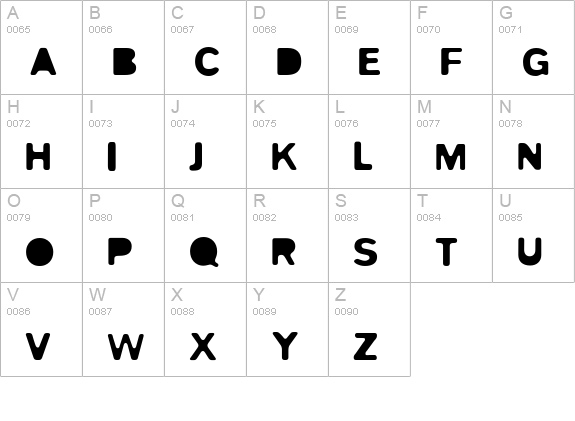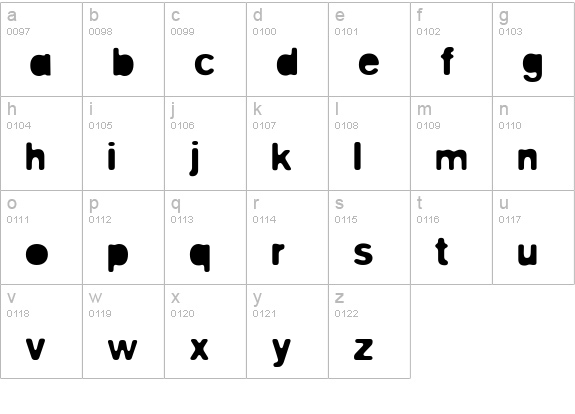
biliz_blurRegular Font Details
biliz_blurRegular font is a modern and stylish typeface that exudes a sense of sophistication and elegance. Its smooth lines and unique curves make it perfect for a wide range of design projects, from branding to advertising. This versatile font is ideal for creating eye-catching logos, headlines, and posters that will surely grab the attention of your audience. What's even better is that biliz_blurRegular font is available for free download at FontsMarket.com. This means you can easily access this high-quality font without any cost, making it a valuable addition to your font collection. Don't miss out on the opportunity to enhance your designs with this beautiful and trendy typeface. Download biliz_blurRegular font today and take your projects to the next level!